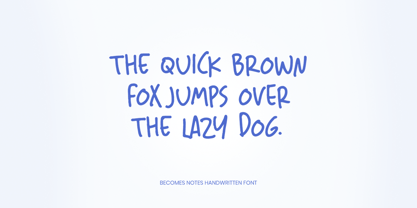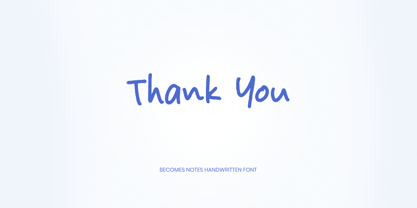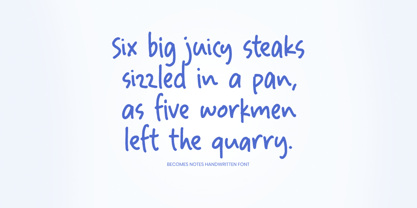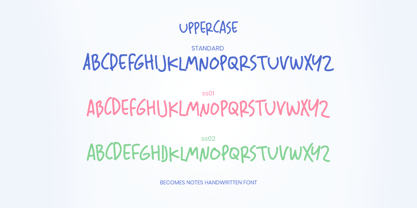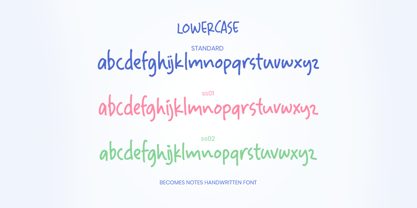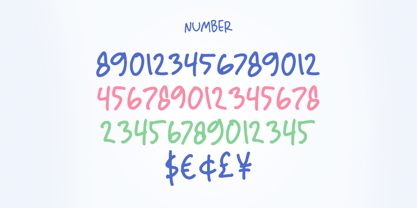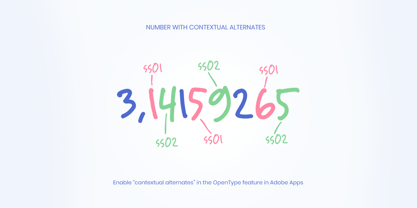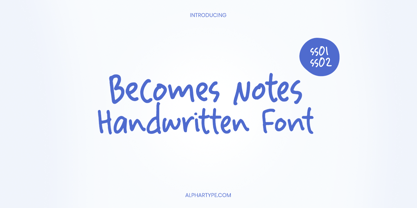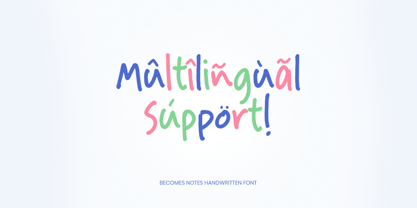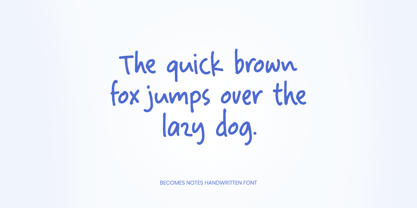
Becomes Notes
by alphArt
The Becomes Notes Font Family was designed by Agung Rohmat and published by alphArt. Becomes Notes contains 1 styles.
Unleash the spectrum of creativity in your notes with Becomes Notes Handwritten Font, hailed as the ultimate choice for those seeking the best font for notes. This font captures the essence of vibrancy and clarity, adding a touch of personality to your written words. The carefully crafted characters make Becomes Notes an ideal companion for note-taking, ensuring your ideas stand out with brilliance.
Becomes Notes Handwritten Font is not just a font; it's a celebration of expression. Whether you're jotting down thoughts, creating study materials, or simply making your notes visually appealing, Becomes Notes offers versatility and charm. Elevate your note-taking experience with the captivating hues of this extraordinary font.
Choose Becomes Notes Handwritten Font for notes that speak volumes in color and character.
Becomes Notes